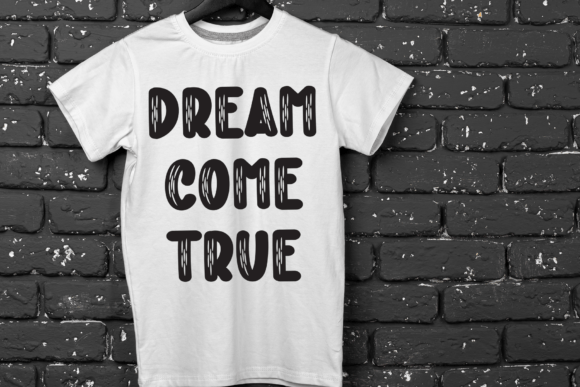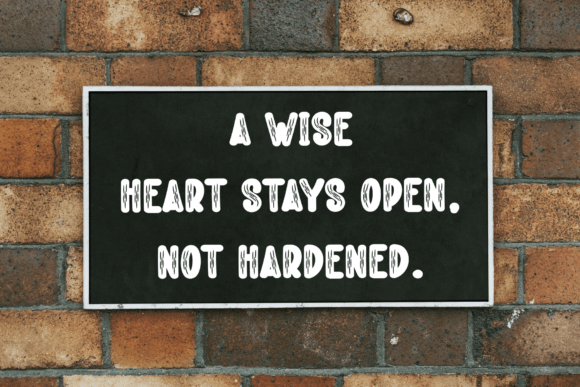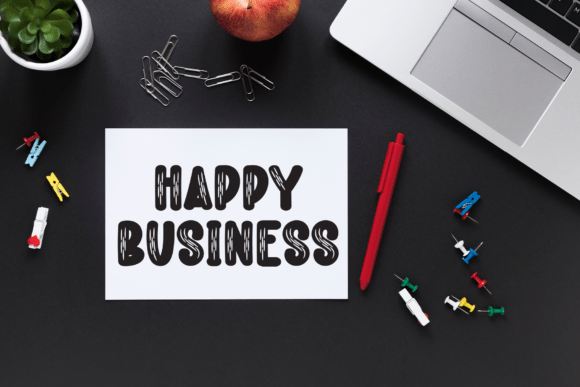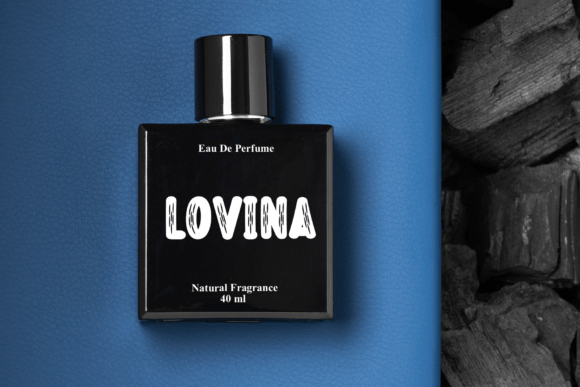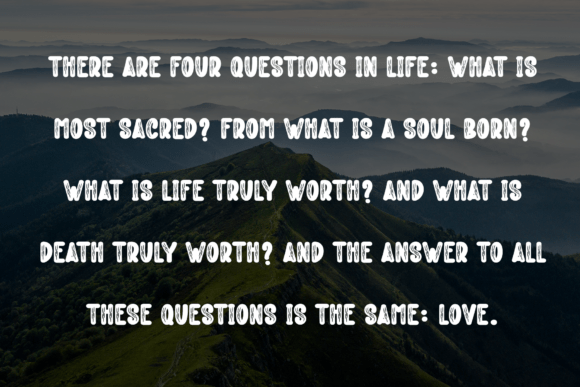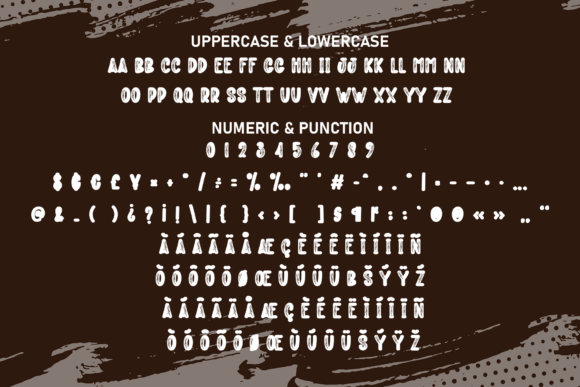
Unleash Your Creativity with the Brush History Font
Have you ever been brainstorming ideas for a new project and suddenly, the perfect font pops into your head? That’s exactly what happened to me when I stumbled upon the Brush History Font. Its unique, hand-crafted style instantly sparked a wave of inspiration, and I knew I had to dive deeper.
The Brush History Font is a special creative product designed to elevate your designs to the next level. Its versatility makes it perfect for a wide range of applications, from wall displays and wedding invitations to social media post logos and advertisements. As a designer, you’ll appreciate the value it adds to your projects, and with its compatibility with popular design software, you can seamlessly integrate it into your workflow.
Brush History Font Key Features
- Font Family: A unique, hand-drawn font with a historical feel, ideal for creating a vintage or antique look in designs.
- Character Set: Includes a comprehensive character set, including uppercase and lowercase letters, numbers, and punctuation marks.
Brush History Font Review
I recently had the chance to work with the Brush History Font, and I must say, it’s a unique and interesting choice for designers. ✨ One thing that stands out is its hand-drawn, brush-like feel, which can add a personal touch to any project. It’s perfect for creating a more artistic or creative vibe.
- ✨ The font is highly legible, even at smaller sizes, making it suitable for body text.
- ✨ The font’s irregularities and imperfections can add a touch of character to headings and titles.
- ✨ The font is highly customizable, allowing designers to adjust its spacing, width, and other attributes to suit their needs.
However, there are some limitations to consider. ⚠️ The font’s irregularities can sometimes make it difficult to read, especially for people with vision impairments. Additionally, the font may not be suitable for projects that require a more formal or professional tone.
Overall, I think the Brush History Font is a great choice for designers who want to add a touch of personality to their projects. It’s perfect for creative or artistic projects, but may not be the best fit for more formal or professional work. With some careful consideration of its limitations, the Brush History Font can be a valuable addition to any designer’s toolkit.
The Brush History Font is ideal for creating unique, hand-painted effects in a variety of designs, including:
Artistic illustrations and graphics
Watercolor-inspired designs
Hand-lettered quotes and typography
Personalized invitations and stationery